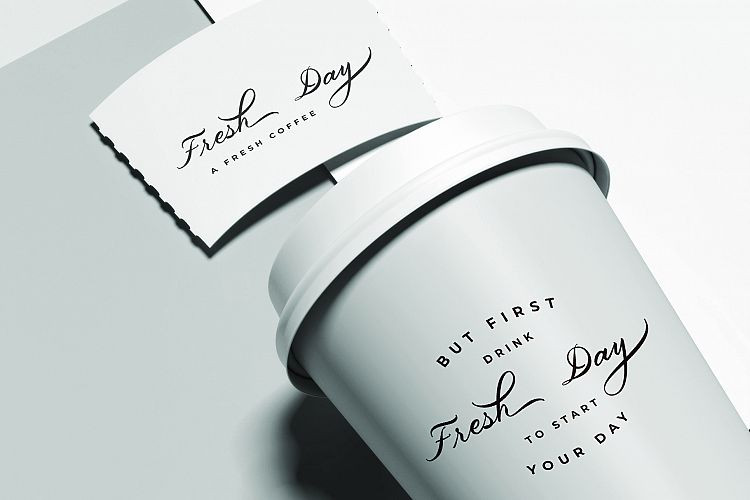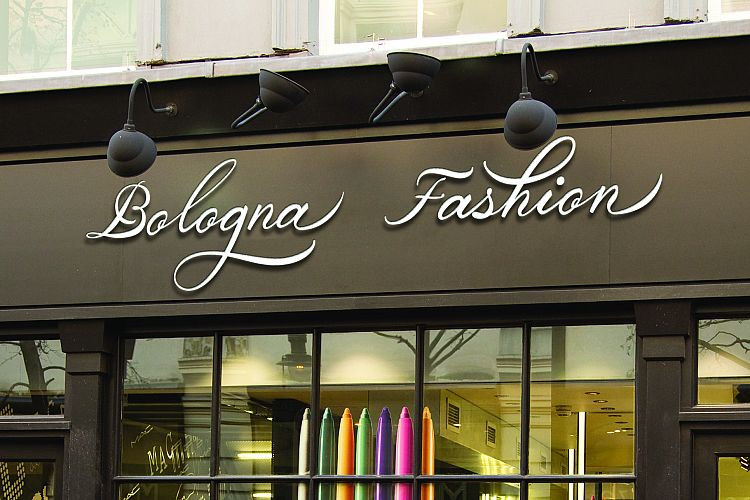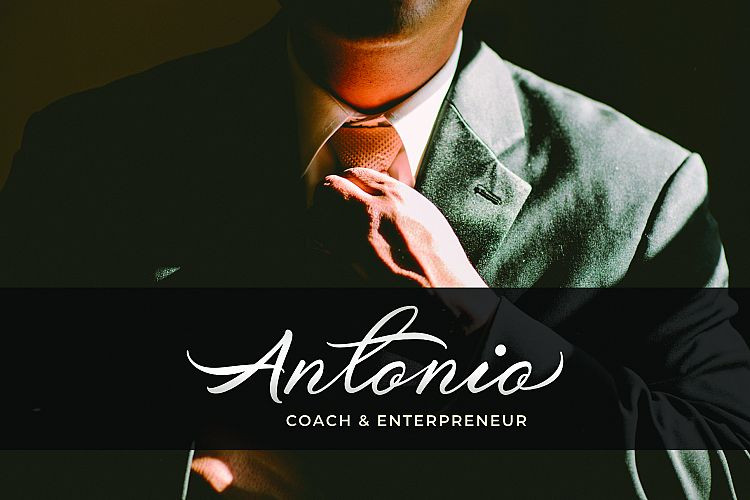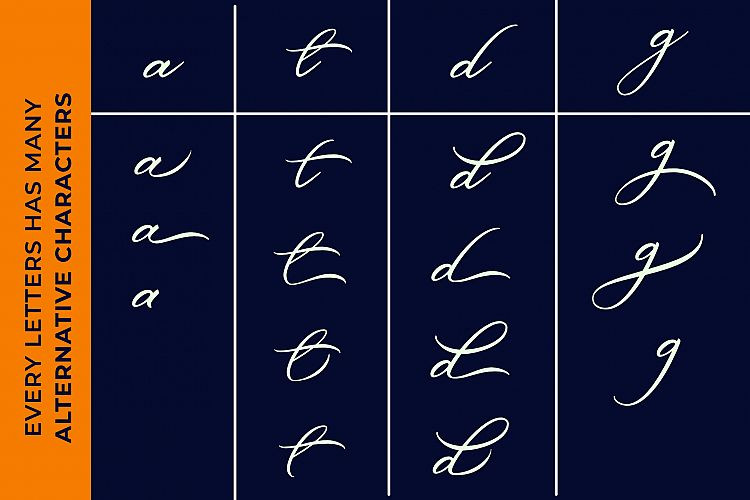
Belgian Signature Font
Belgian Signature – Demo Font
Introducing the new an elegant script font, Belgian Font! It’s a stylish modern calligraphy font that extremely perfect for branding, wedding invites and cards,label and more. Belgian Signature includes opentype feature that allows you to play freely your typography game.